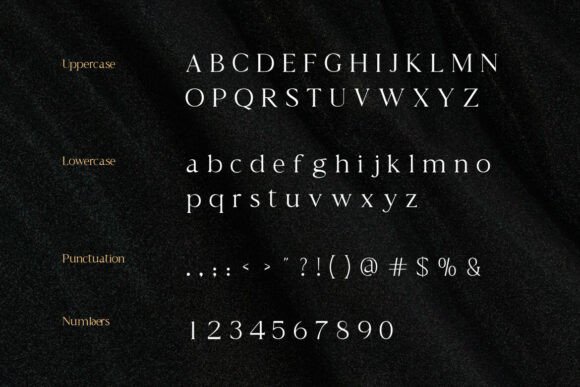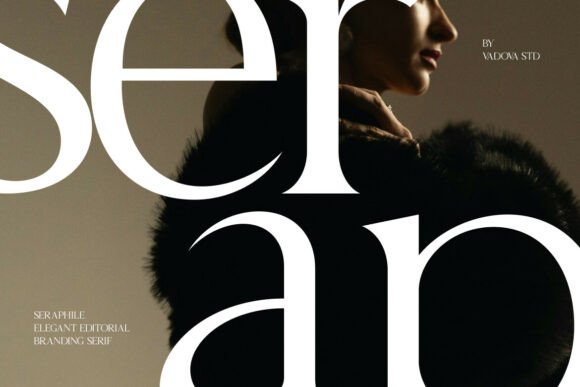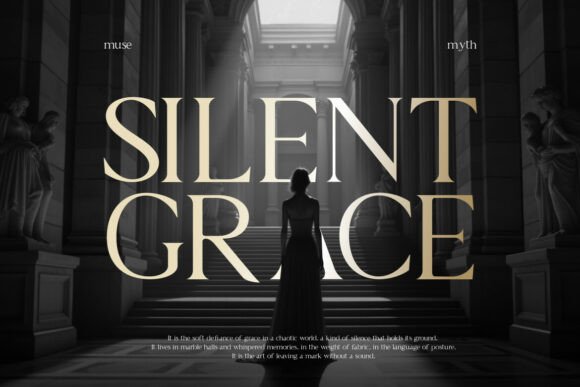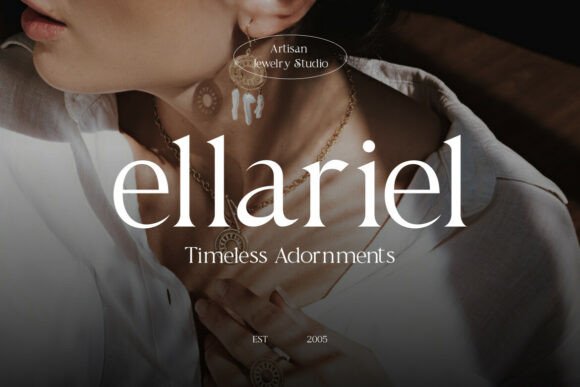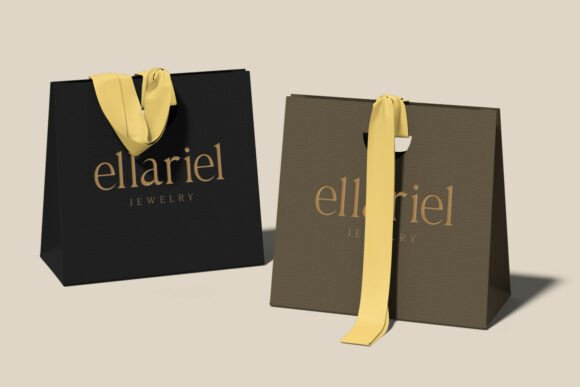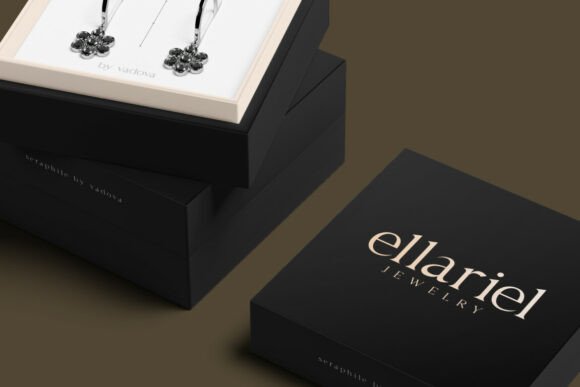
Introduction to Seraphile Font Font
Fonts play a crucial role in design, and the Seraphile Font font is a typeface that brings both character and versatility to any project. Whether you’re working on a branding project, a website, or a print design, the Seraphile Font font offers a unique style that can elevate your work.
Seraphile is a luxurious serif typeface designed to elevate branding and packaging with refined elegance.
Its graceful letterforms, clean structure, and subtle flair make it ideal for upscale logos, jewelry packaging, fashion labels, and premium editorial spreads Seraphile balances timeless beauty with a contemporary feel, offering designers a versatile font for sophisticated identities and minimalist visual storytelling.
Key Features of Seraphile Font Font
Why Choose Seraphile Font Font?
The Seraphile Font font is more than just a typeface – it’s a design tool that helps you communicate your message with style and clarity. Its unique character set and versatile design make it suitable for a wide range of applications, from elegant invitations to bold headlines.
With its carefully crafted letterforms and balanced proportions, the Seraphile Font font ensures readability and visual appeal across all mediums.
What makes Seraphile Font font special?
The Seraphile Font font stands out with its unique design, exceptional readability, and versatility across various design applications.